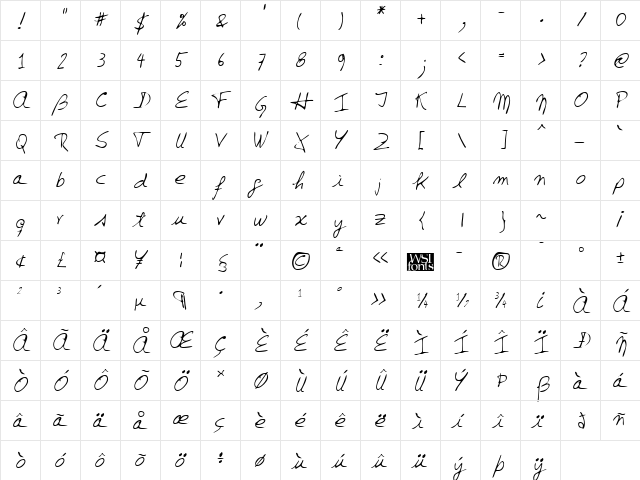
JenkinsHand Regular
Design Context for JenkinsHand Typeface
JenkinsHand flows with the natural rhythm of handwritten lettering, making it ideal for designs that call for warmth and personal expression.
Font Pairing: Combine JenkinsHand with a simple geometric sans for maximum contrast — the tension between flowing curves and clean structure is a classic typographic pairing.
Pro Tip: Pair JenkinsHand with a clean sans-serif for supporting text. The contrast between fluid script and geometric structure creates an elegant typographic hierarchy.